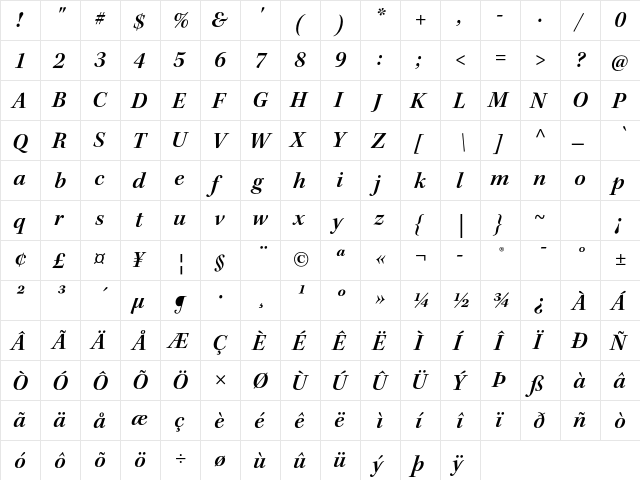
Kepler Std Semibold Italic Subhead
| Designer | Robert Slimbach |
Design Context for Kepler Std Typeface
Kepler Std is a composed and adaptable typeface that performs quietly and consistently across a wide range of design contexts. The slanted form adds forward momentum and visual energy. The heavy weight commands attention and anchors typographic hierarchies.
Pro Tip: Use Kepler Std for emphasis, pull quotes, and subheadings where its slanted energy can add rhythm to the layout.